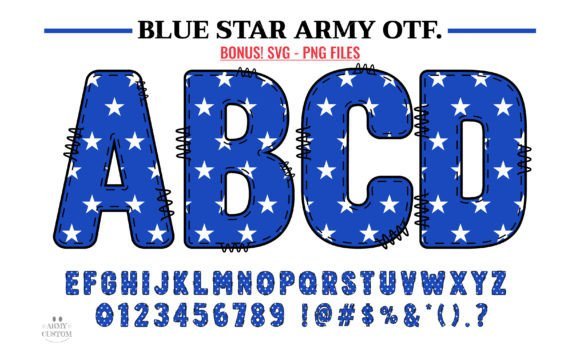
Unleashing the Spirit of America: Blue Star Army Font
Do you remember the moment when you first saw a bold, red-white-and-blue design that made you feel an instant rush of patriotism? Maybe it was a t-shirt, a poster, or a logo that caught your eye. Whatever it was, it’s safe to say that the power of design can evoke strong emotions and create lasting impressions. This is exactly what the Blue Star Army Font is all about – capturing the essence of American spirit and channeling it into a unique typeface that inspires and motivates.
As a designer, you’re always on the lookout for the perfect font to convey your message and connect with your audience. The Blue Star Army Font is a valuable addition to any design arsenal, offering a one-of-a-kind look that’s both bold and elegant. Whether you’re creating patriotic designs, American-themed merchandise, or simply want to add a touch of star-spangled flair to your projects, this font is sure to deliver.
Blue Star Army Font Key Features
- Unique Characteristics: Blue Star Army Font features a unique blend of modern and vintage elements, with bold lines and geometric shapes, making it ideal for military, patriotic, or edgy designs.
Review of Blue Star Army Font
I’ve had the chance to work with the Blue Star Army Font, and I’m excited to share my thoughts on it. Here’s what I think:
- The font’s unique blend of modern and vintage elements gives it a quirky, eye-catching feel that’s perfect for creative projects.
- The font’s high x-height and open counters make it highly legible, even at smaller font sizes.
- The font includes a wide range of language support, making it a great choice for multilingual designs.
- The font’s irregular letterforms and rough edges can make it challenging to pair with more traditional or formal fonts.
- The font’s lack of a comprehensive character set may limit its use in certain design applications, such as technical writing or complex graphics.
- The font’s bold and italic weights are not as well-designed as the regular weight, which can make them look somewhat inconsistent.
Overall, I think the Blue Star Army Font is a great choice for designers looking to add some personality to their projects. While it may not be the best fit for every design, it’s a solid option for those who want to create something unique and memorable.
Practical Application Guide: Blue Star Army Font
For best results, use the Blue Star Army Font in bold or italic styles to add emphasis to your text.
- Creating bold, eye-catching headlines.
- Designing military or patriotic-themed graphics.
- Adding a unique touch to your branding or logo.